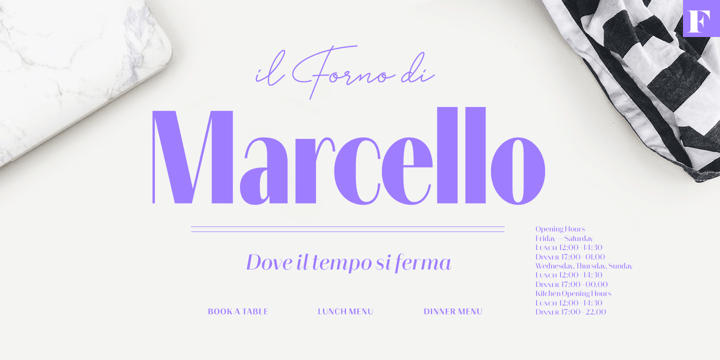
Alonzo
by Fenotype
The Alonzo Font Family was designed by Emil Karl Bertell, Erik Jarl Bertell, Teo Tuominen and published by Fenotype. Alonzo contains 24 styles and family package options. More about this family
Alonzo is a modern cosmopolitan who speaks several languages fluently. Alonzo comes in six weights and two widths, as well as corresponding italics, making a total 24 styles.
Alonzo is an elegant, simplistic, high-contrast sans that is at home in high-end fashion and cultural environments, as well as in the world of restaurants and nightclubs.
While Alonzo Condensed is more illustrative and works best in display use, headlines, logotypes, labels and all that, Alonzo Regular works in a wider range of contexts, from body text to editorial and catalogs and more.
Alonzo is equipped with several OpenType features such as oldstyle figures, small caps, Standard Ligatures, Superior and Inferior Figures. In addition Alonzo has Stylistic Alternate lowercase "a" with round Bowl.
Me llamo Alonzo. Mucho gusto, piacere di conoscerti, nice to meet you!
Designers: Emil Karl Bertell, Erik Jarl Bertell, Teo Tuominen
Foundry: Fenotype
Original Foundry: Fenotype